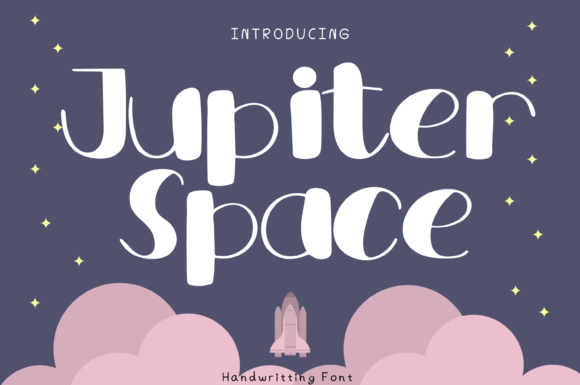
Jupiter Space Font: Elevate Your Designs with a Whimsical and Chic Handwritten Style
The world of typography is vast and diverse, with countless font styles to choose from, each with its unique character and charm. Among these, the Jupiter Space font stands out as a beacon of creativity and elegance. This article delves into the essence of the Jupiter Space font, exploring its features, uses, and the impact it can have on your design projects.
Introduction to Jupiter Space Font
Jupiter Space is a whimsical and chic handwritten font, designed to bring a touch of personality and flair to any project. Its unique blend of elegance and playfulness makes it an excellent choice for a wide range of applications, from creative branding and advertising to personal stationery and digital content.
Key Features of Jupiter Space Font
- Whimsical and Chic: Jupiter Space boasts a distinctive handwritten style that is both whimsical and chic, making it perfect for designs that require a personal touch.
- Versatility: This font can easily be matched to an incredibly large set of projects, showcasing its versatility and adaptability.
- Elegance: Despite its playful nature, Jupiter Space maintains an air of elegance, suitable for sophisticated designs and upscale branding.
The Uses of Jupiter Space Font
The adaptability of Jupiter Space font is one of its most appealing qualities. Here are some of the many ways you can incorporate this beautiful font into your projects:
Creative Branding and Advertising
Jupiter Space font can add a unique and memorable touch to your brand’s identity. Its distinctive style ensures that your brand stands out in a crowded market, making it more noticeable and engaging to potential customers.
Digital Content
In the digital realm, content creators can use Jupiter Space to add personality to blog posts, social media updates, and website content. This can help in building a more personal connection with the audience and enhancing the overall user experience.
Personal Stationery
For personal use, Jupiter Space can elevate your stationery designs, such as greeting cards, invitations, and journals, adding a touch of whimsy and sophistication.
How Jupiter Space Font Can Make Your Designs Stand Out
Incorporating Jupiter Space into your designs can significantly enhance their appeal. Here’s how:
Uniqueness
The font’s unique style ensures that your designs don’t get lost in the sea of generic and overused fonts. It adds a distinct character that can make your work more recognizable.
Emotional Connection
The whimsical nature of Jupiter Space can evoke emotions and create a connection with the viewer. This is particularly useful in advertising and branding, where creating an emotional bond with the audience is crucial.
Versatility in Pairing
Jupiter Space can be paired with a variety of other fonts to create stunning visual effects. Its versatility in pairing makes it a valuable addition to any designer’s font library.
Tips for Using Jupiter Space Font Effectively
To make the most out of Jupiter Space font, consider the following tips:
Use it Sparingly
While Jupiter Space is beautiful, using it sparingly can make it more impactful. Consider using it for headings or key messages to draw attention.
Experiment with Colors
Play around with different colors to find the perfect match for your design. The right color combination can enhance the font’s beauty and make your design pop.
Pair it Wisely
Experiment with font pairings to find the combination that works best for your project. Jupiter Space can be paired with both serif and sans-serif fonts for different effects.
Jupiter Space font is a whimsical and chic handwritten font that can easily be matched to an incredibly large set of projects. Its unique blend of elegance and playfulness makes it an excellent choice for designers looking to add a touch of personality and flair to their work. By incorporating Jupiter Space into your designs, you can make them stand out, evoke emotions, and create a lasting impression on your audience.
Whether you’re working on creative branding, digital content, or personal stationery, Jupiter Space font is sure to elevate your designs and bring your creative ideas to life.